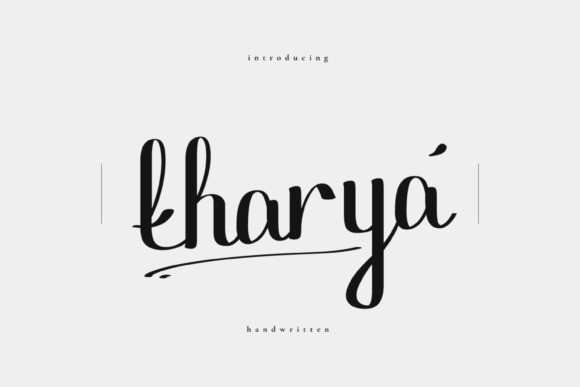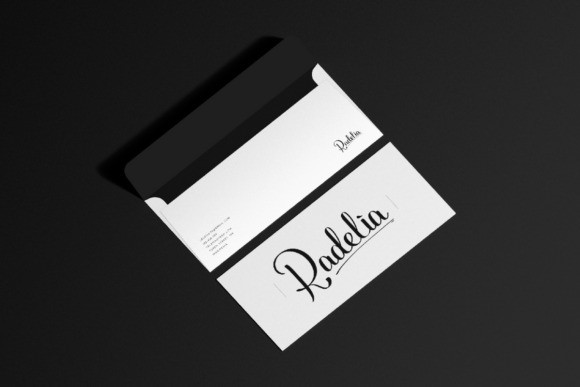
Tharya Font
Tharya is a handwritten font suitable for any design. Every curve in each letter gives a simple and beautiful impression. You can use this font for wedding invitations or just to beautify your notebook. This font is suitable for various other designs, whether formal or not.